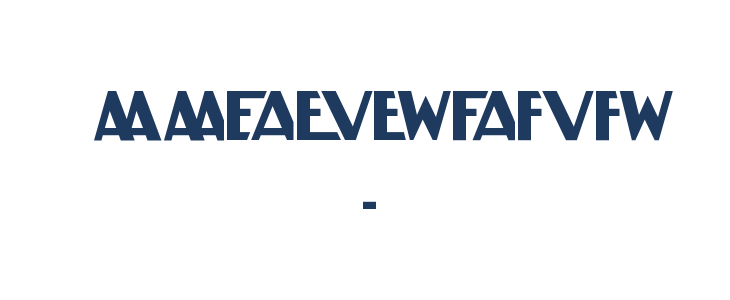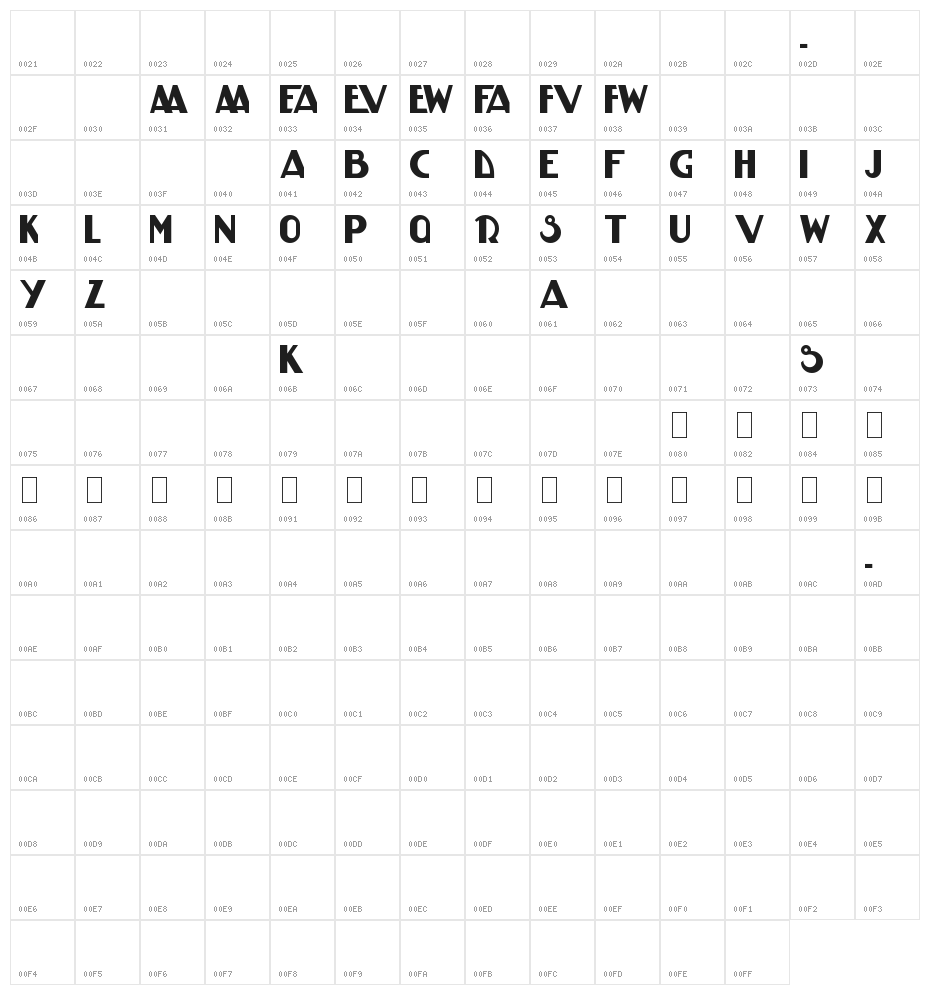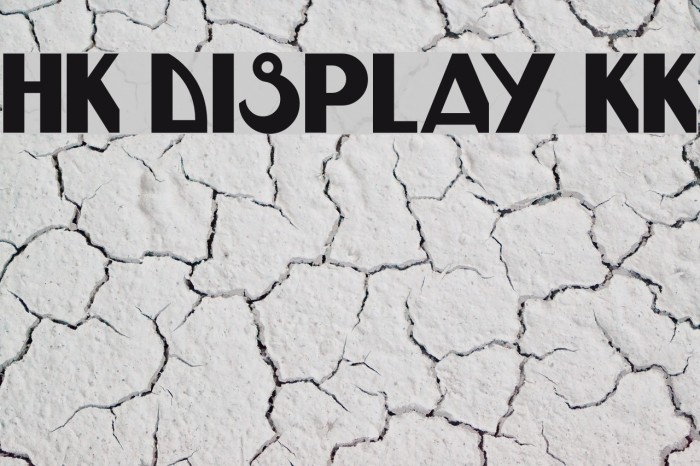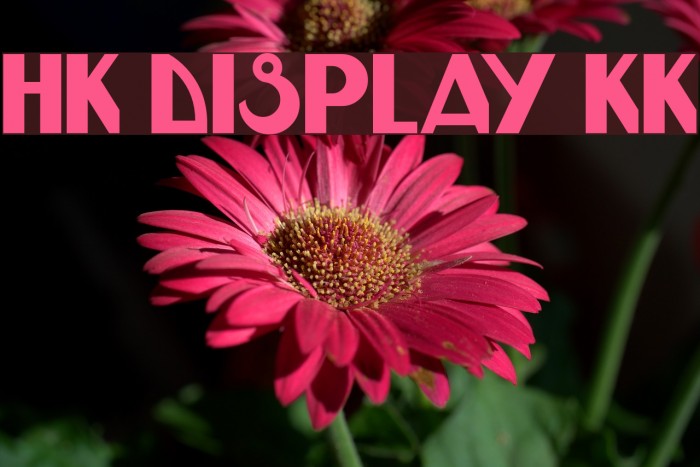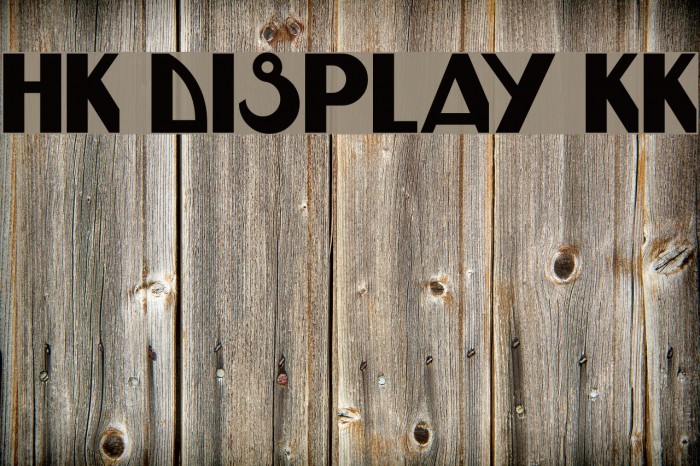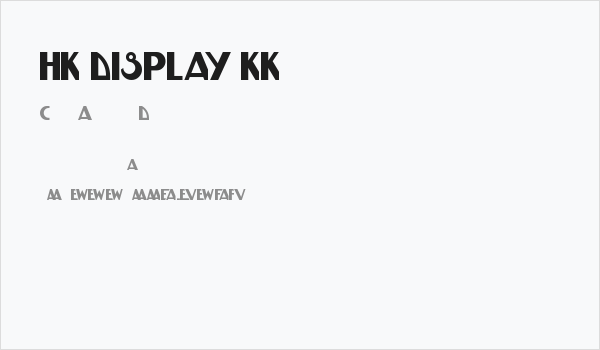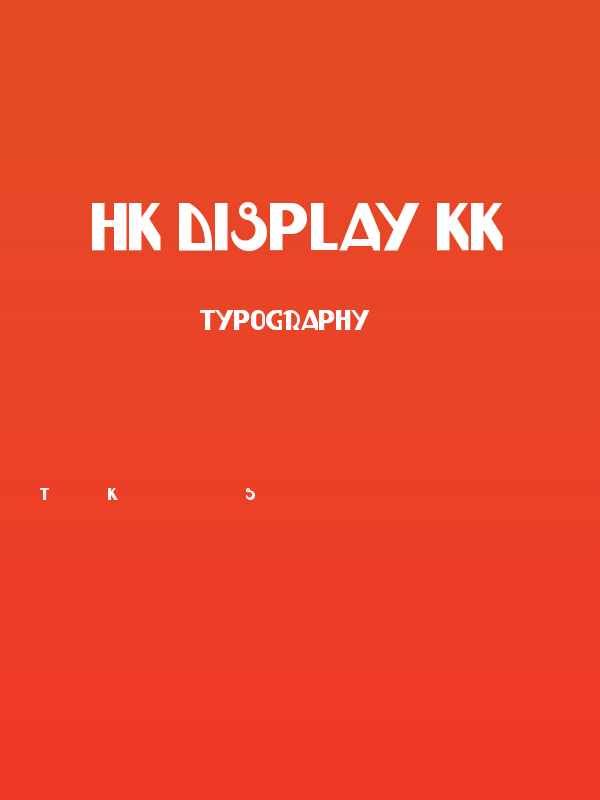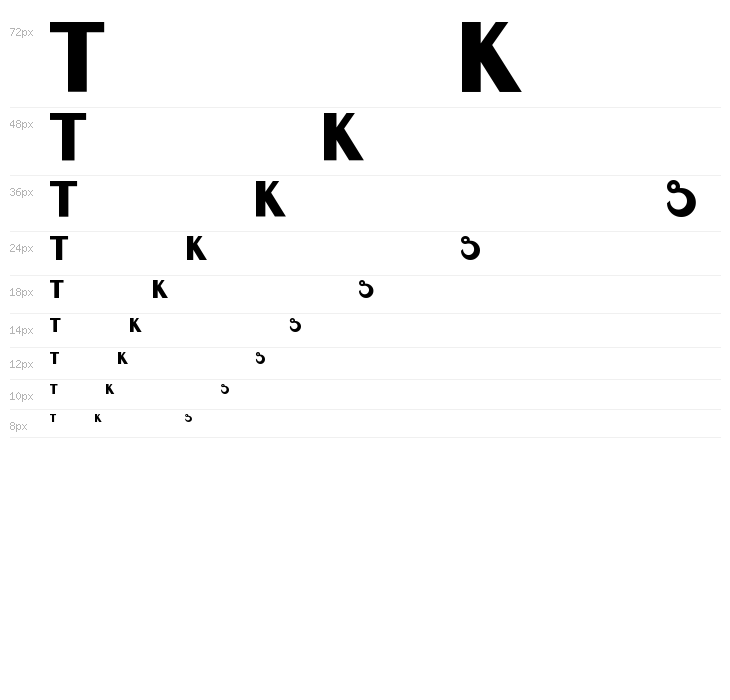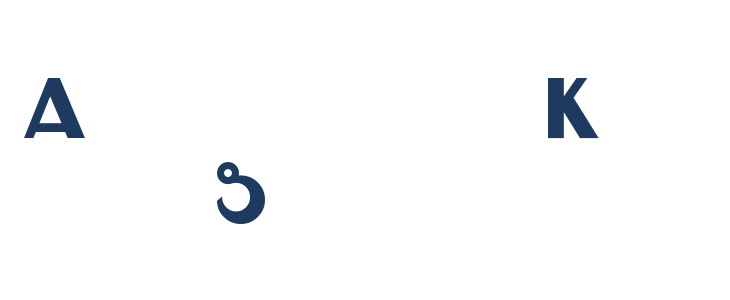
HK DISPLAY KK Font
HK DISPLAY KK Description
This font features a bold and geometric design with a modern aesthetic. The uppercase letters are characterized by their strong, angular shapes and unique cutouts, giving them a futuristic and dynamic appearance. The font has a consistent weight throughout, providing a sense of stability and uniformity. The characters are tightly spaced, enhancing the compact and cohesive look. The design is highly stylized, making it suitable for creative and eye-catching projects. Its distinctive style is perfect for making a statement in headlines or logos, where a bold and memorable impression is desired.